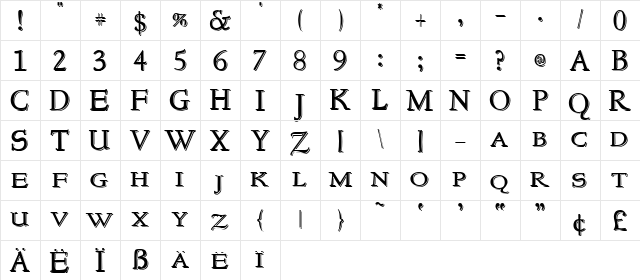
NewStyleSmallCaps Embossed Regular
Designer: PJL
Complete NewStyleSmallCaps Embossed Regular glyph index. Displaying only characters natively supported by NewStyleSmallCaps Embossed Regular font.
Design Context for NewStyleSmallCaps Embossed
NewStyleSmallCaps Embossed is a composed and adaptable typeface that performs quietly and consistently across a wide range of design contexts.